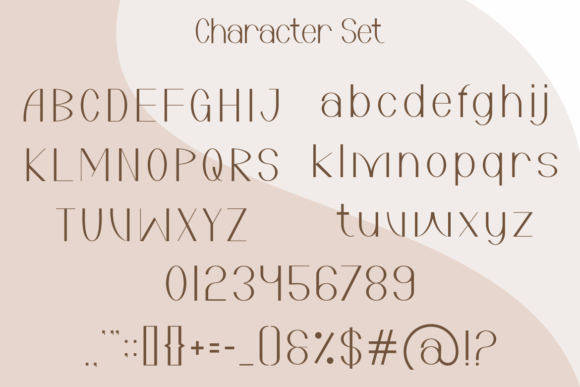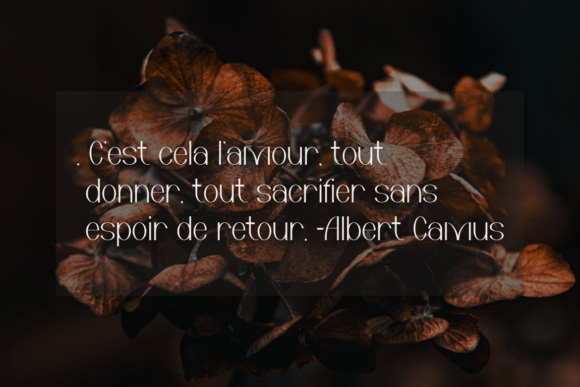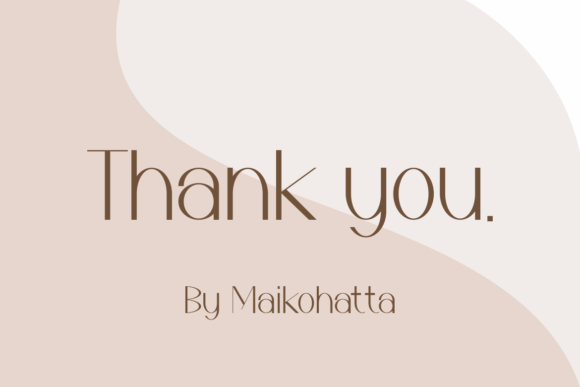
Introducing Estilias Font: The Epitome of Modern Sans Serif Elegance
In the realm of typography, the right font can make all the difference in the success of a design project. For designers and crafters seeking a modern, elegant, and versatile font, Estilias Font stands out as an exceptional choice. This modern Sans Serif font boasts thin and elegant characters, making it an ideal fit for a wide array of branding projects, including logos, t-shirt printing, esports, and numerous other applications.
The Characteristics of Estilias Font
Estilias Font is distinguished by its sleek and contemporary design. Its sans serif nature gives it a clean and minimalist appearance, which is both timeless and versatile. The font’s characters are thin and elegant, imbuing any text with a sense of sophistication and refinement. This makes Estilias particularly suited for projects where a touch of elegance is desired, without sacrificing readability or impact.
One of the key advantages of Estilias Font is its versatility. Its design is broad enough to be used in a variety of contexts, from digital platforms to print materials. Here are some of the areas where Estilias Font truly shines:
- Logo Design: The unique and elegant design of Estilias Font makes it an excellent choice for logos. It can help a brand stand out and convey a sense of modernity and sophistication.
- T-Shirt Printing: For crafters and designers looking for a font that will make their t-shirt designs pop, Estilias offers a stylish and contemporary look that will appeal to a wide audience.
- Esports and Gaming: The esports and gaming industries are known for their cutting-edge and modern branding. Estilias Font fits right in, offering a sleek and professional look that aligns well with these dynamic fields.
- Digital Media: Whether it’s for website headers, social media graphics, or digital advertisements, Estilias Font’s clarity and elegance make it an excellent choice for digital media.
Why Choose Estilias Font?
There are several reasons why designers and crafters should consider Estilias Font for their projects:
- Elegance: The font’s thin and elegant characters add a touch of sophistication to any design.
- Versatility: Its modern sans serif design makes it suitable for a wide range of projects and industries.
- Readability: Despite its elegant and thin design, Estilias Font maintains high readability, making it effective for both headings and body text.
- Uniqueness: Estilias Font offers a unique look that can help designs stand out in a crowded marketplace.
Tips for Using Estilias Font
To get the most out of Estilias Font, consider the following tips:
- Pair with Complementary Fonts: For maximum effect, pair Estilias Font with fonts that complement its elegance and modernity. A contrasting serif font can create a visually appealing combination.
- Experiment with Colors: While Estilias Font looks great in black and white, experimenting with colors can enhance its elegance. Metallic colors, pastels, or bold hues can add an extra layer of sophistication.
- Consider the Context: Tailor your use of Estilias Font to fit the context of your project. For instance, a more subtle use might be appropriate for a website, while a bold statement might be better suited for a t-shirt design.
Estilias Font is a modern sans serif font that brings a touch of elegance and sophistication to any design project. Its versatility, readability, and unique design make it an excellent choice for designers and crafters across a variety of industries. Whether you’re working on a logo, t-shirt printing, esports branding, or any other project, Estilias Font is sure to enhance your design and make it stand out. With its wide range of applications and aesthetic appeal, Estilias Font is a valuable addition to any designer’s toolkit.